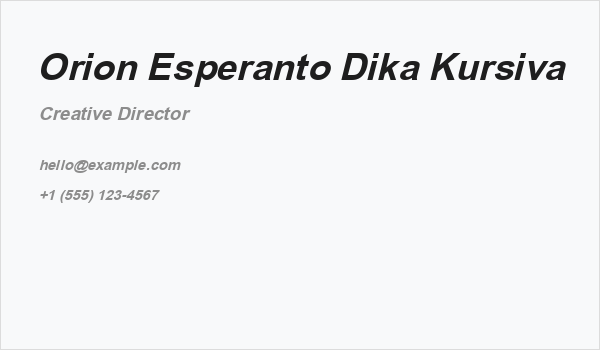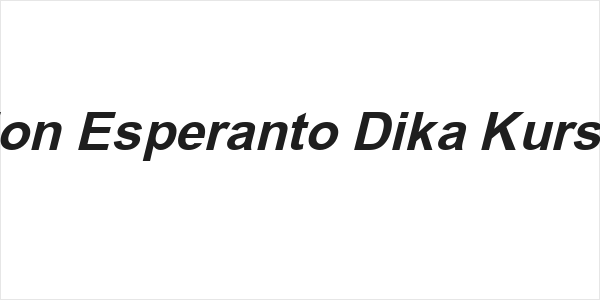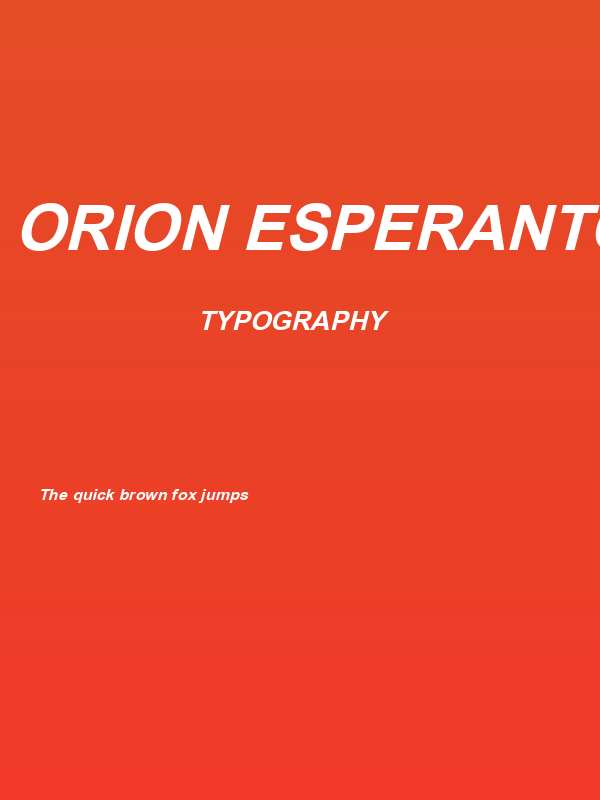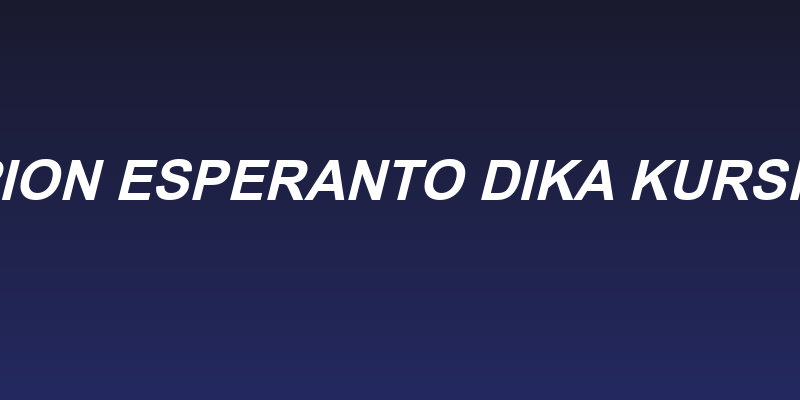
Orion Esperanto Dika Kursiva Font
Orion Esperanto Dika Kursiva Description
This font features a bold and italic style, characterized by its strong, slanted letterforms that convey a sense of dynamism and modernity. The uppercase and lowercase letters are well-proportioned, maintaining a consistent slant that enhances readability while adding a touch of elegance. The numerals are clear and distinct, making them suitable for various applications. Special characters are included, offering versatility for different types of content. The overall design is sleek and contemporary, making it ideal for projects that require a bold statement.
| Use Case | Headlines, Logos, Advertising |
| Proposed Projects | Ideal for branding, advertising, headlines, and digital media that require a strong, modern aesthetic. |